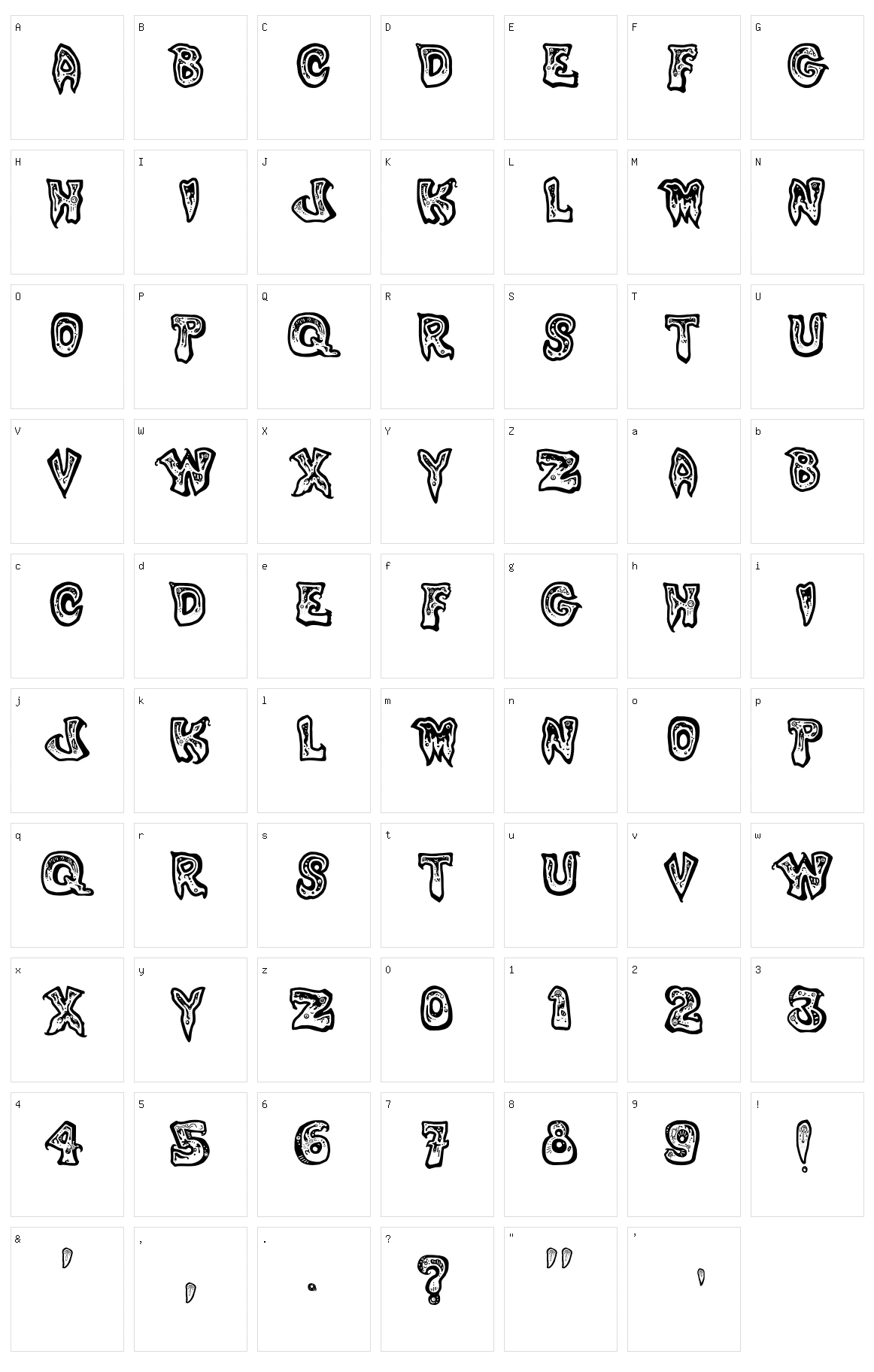
The free font Phlegmy Kilmister is carefully designed by Michael Gaines, showcasing a thoughtful balance of creativity and usability and falls under the Horror font style. When you download the ZIP file, it contains only 78.19 KB of font files, making it lightweight and quick to download. Please review the license details below to understand permitted usage and distribution rights. If license information is not available, we recommend using this font for personal projects only or contacting the author directly for commercial usage permissions.